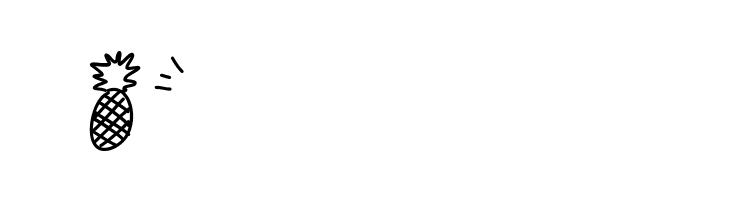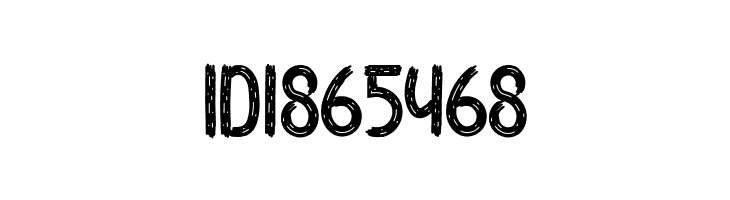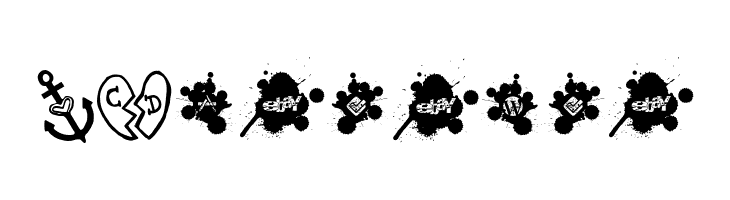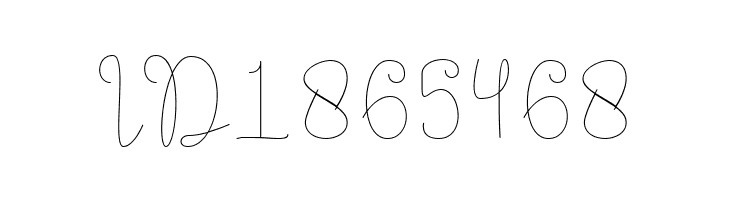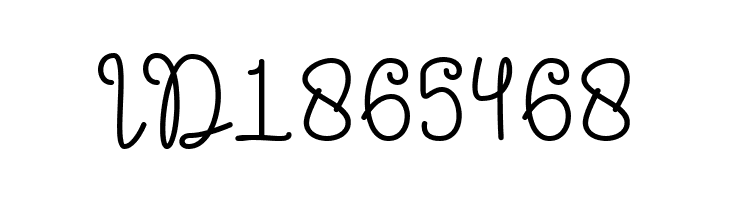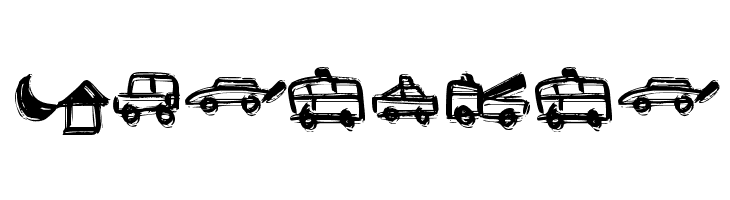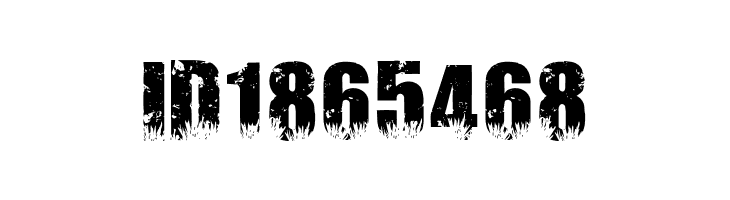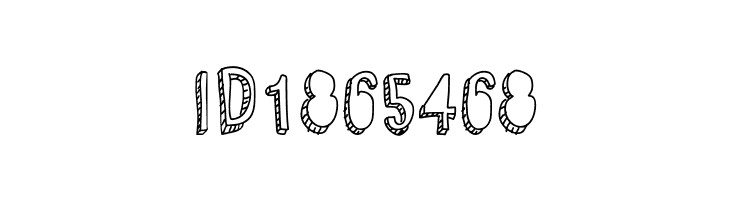
A playful set of hand-drawn doodles with a whimsical, sketch-like style.
A playful, hand-drawn font with a doodle-like, textured style.
A playful, doodle-based decorative font with unique illustrations for each character.
A doodle and graffiti-inspired decorative font with playful illustrations.
A delicate, elegant script font with thin, flowing lines and a handwritten appearance.
A playful, hand-drawn script font with interconnected letters and a whimsical style.
A playful set of hand-drawn doodles depicting various objects and scenes.
A bold, textured font with a natural, overgrown foliage effect.
A playful, hand-drawn font with a striped, doodle-like design.